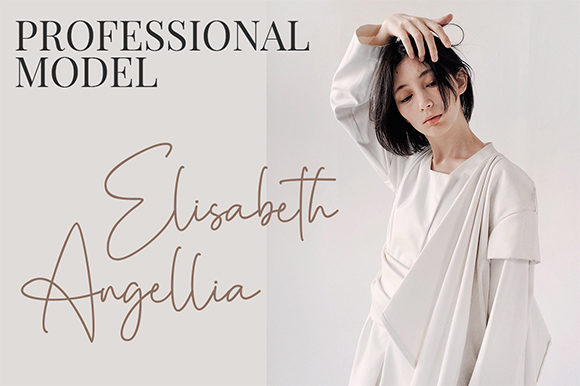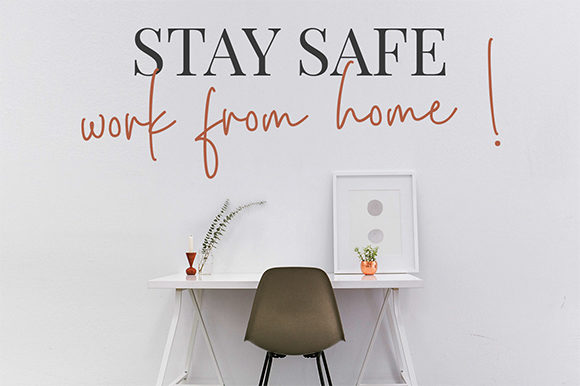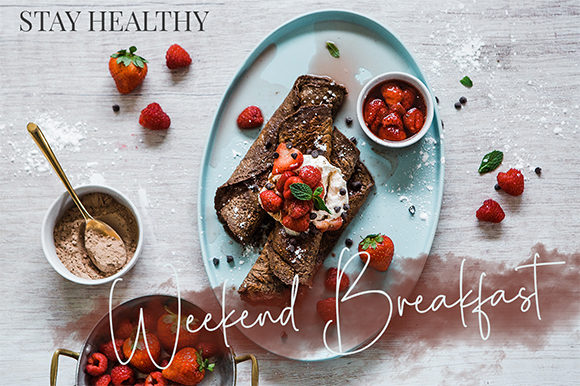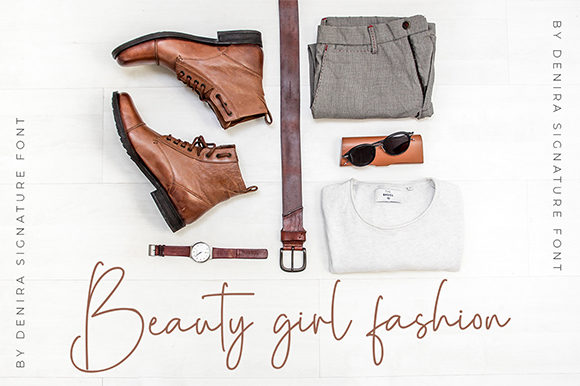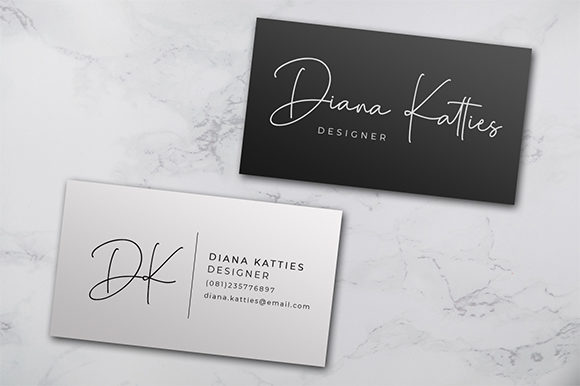
Introducing Denira Signature Font: Elevate Your Designs with Elegance and Authenticity
In the world of digital design, typography plays a crucial role in conveying the tone and personality of a brand or project. Among the numerous fonts available, Denira Signature stands out as a unique and captivating choice for designers and crafters. This magical handwritten font is carefully crafted with a touch of elegance, combining timeless sophistication with authentic calligraphy.
The Essence of Denira Signature
Denira Signature is a beautiful blend of classic style and friendly feel, making it an ideal choice for creating original and outstanding designs. Its incredibly classic style is reminiscent of traditional calligraphy, while its friendly undertones add a touch of approachability and warmth. This font is perfect for designers seeking to add a personal and human touch to their work.
Key Features of Denira Signature
- Timeless Elegance: Denira Signature boasts a classic style that exudes sophistication and refinement, making it suitable for high-end designs and luxury brands.
- Authentic Calligraphy: The font’s authentic calligraphy feel adds a touch of personality and whimsy, perfect for designs that require a human touch.
- Friendly Feel: Despite its classic style, Denira Signature maintains a friendly and approachable tone, making it ideal for designs that aim to connect with the audience on a personal level.
- Versatility: This font is highly versatile and can be used for a wide range of design projects, from branding and advertising to packaging and digital media.
Why Choose Denira Signature?
Denira Signature offers a unique combination of elegance, authenticity, and friendliness, making it an excellent choice for designers and crafters. Here are some reasons why you should consider using Denira Signature for your next project:
- Stand out from the crowd: With Denira Signature, you can create designs that are truly unique and eye-catching, setting you apart from the competition.
- Convey your brand’s personality: This font allows you to convey your brand’s personality and tone with precision, whether you’re aiming for a luxurious, sophisticated, or friendly vibe.
- Ease of use: Denira Signature is easy to use and pairs well with a variety of other fonts, making it a versatile addition to your design toolkit.
Design Applications for Denira Signature
Denira Signature is a highly versatile font that can be used in a variety of design applications, including:
- Branding and Logo Design: Create stunning logos and brand identities that exude elegance and sophistication.
- Advertising and Marketing: Use Denira Signature to create eye-catching ads and marketing materials that capture the audience’s attention.
- Packaging Design: Add a touch of luxury and sophistication to your packaging designs with Denira Signature.
- Digital Media: Use this font to create engaging and interactive digital content, such as social media graphics, blog posts, and website headers.
Denira Signature is a truly unique and captivating font that offers a perfect blend of elegance, authenticity, and friendliness. Its versatility, ease of use, and stunning design make it an excellent choice for designers and crafters seeking to elevate their designs. Whether you’re working on a branding project, advertising campaign, or digital media content, Denira Signature is sure to make your designs stand out from the crowd.